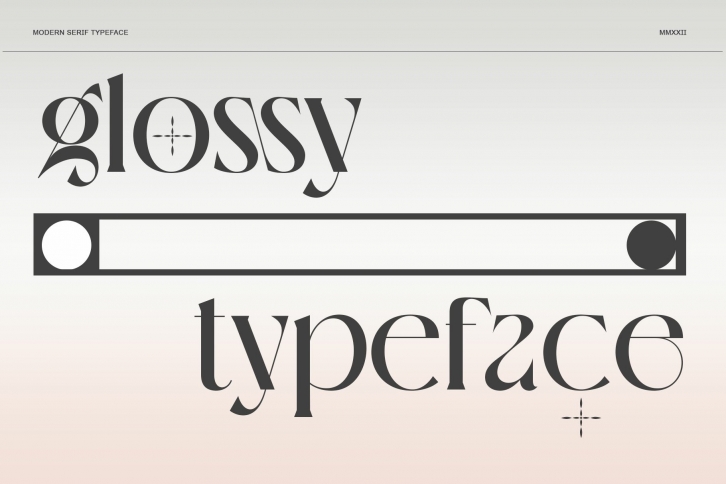
glossy serif is a trendy and unique font with an authentic style. It was designed by Sansakerta and it's a great choice for creative people who need such a font. It was released on July 13, 2022 and the file size is 17.82 MB. glossy serif will add an organic vibe to any design idea!